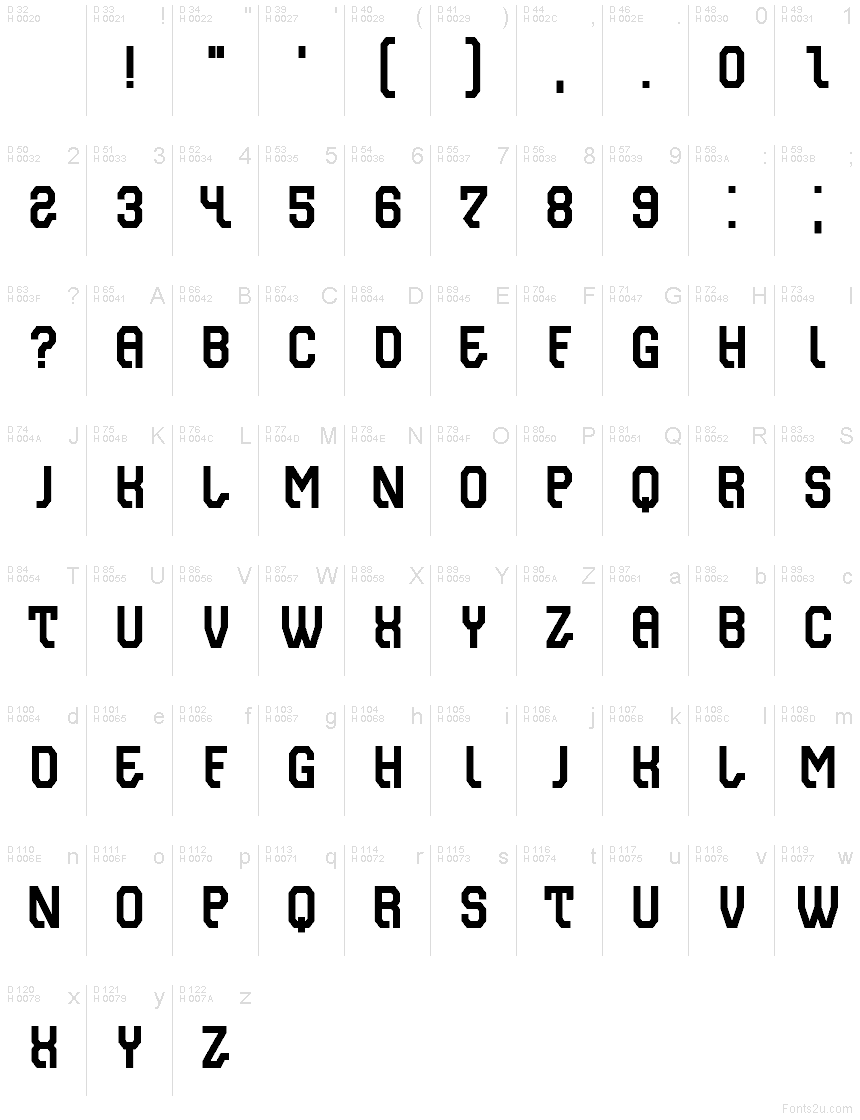
Displej Regular
Displej font by Vladimir Nikolic is a free techno display typeface with brutal, faceted geometry that looks carved from matte metal. Its chunky stems, beveled corners, and tight rhythm create a forward-tilting energy, so headlines feel like they’re humming with voltage. The squared counters and crisp, mechanical edges keep forms readable while pushing a bold, futuristic tone.
Using Displej, you get instant sci‑fi grit for esports branding, game titles, tech conference graphics, gadget packaging, movie posters, and eye‑grabbing thumbnails. The compact spacing delivers punch at large sizes; add a touch of tracking for smaller lines. This free font pairs well with a clean grotesk for body copy, letting the angular headline do the heavy lifting.